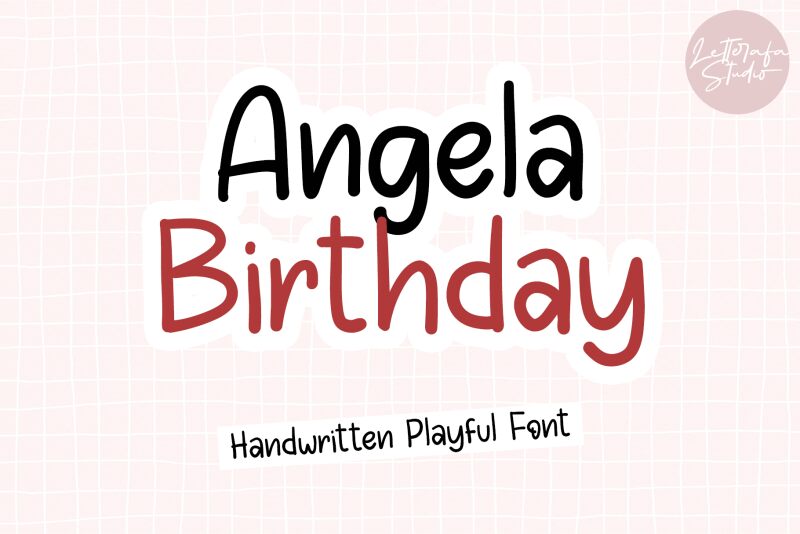
Angela Birthday
Angela Birthday, crafted by the artisans at Letterafa Studio, embodies the charm of handwritten artistry with its semi-light weight that whispers intimacy and warmth. Each stroke in this font dances with a casual elegance, inviting viewers into a world where each letter is infused with personality and grace. The subtly varied line thickness suggests a natural flow of ink from pen to paper, evoking the feel of personal correspondence.
This font's aesthetic appeal lies in its balance between readability and stylistic flair. The almost calligraphic quality positions Angela Birthday perfectly for projects that require a touch of human touch—be it wedding invitations, greeting cards, or boutique branding. Its legibility ensures clear communication while its style conveys an air of bespoke sophistication.
Whether used digitally or in print form, Angela Birthday stands out for its ability to lend authenticity and character to creative endeavors. It is not just a typeface; it's an ally for designers looking to infuse their work with the heartfelt essence often lost in the digital age.
This font's aesthetic appeal lies in its balance between readability and stylistic flair. The almost calligraphic quality positions Angela Birthday perfectly for projects that require a touch of human touch—be it wedding invitations, greeting cards, or boutique branding. Its legibility ensures clear communication while its style conveys an air of bespoke sophistication.
Whether used digitally or in print form, Angela Birthday stands out for its ability to lend authenticity and character to creative endeavors. It is not just a typeface; it's an ally for designers looking to infuse their work with the heartfelt essence often lost in the digital age.